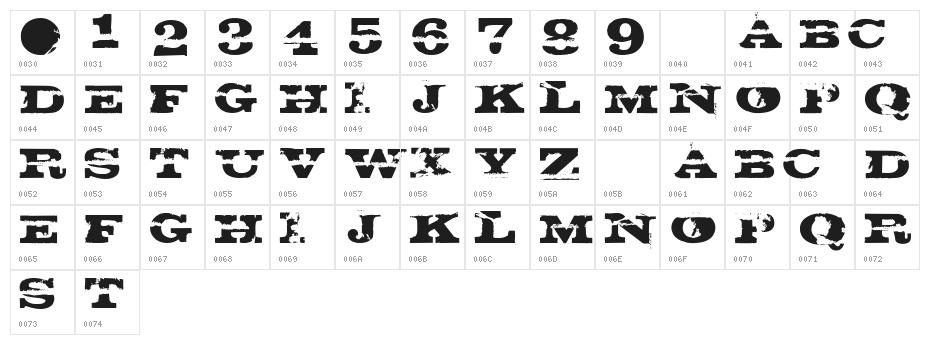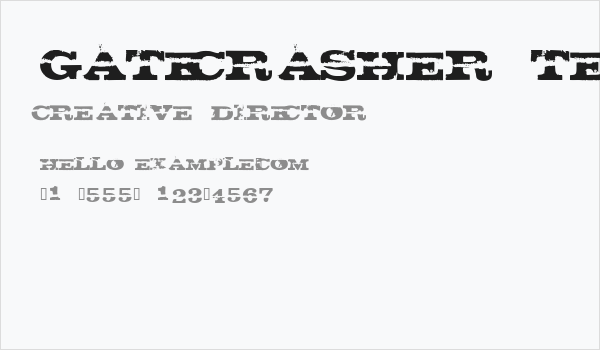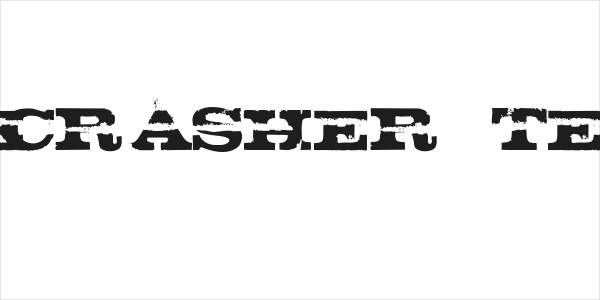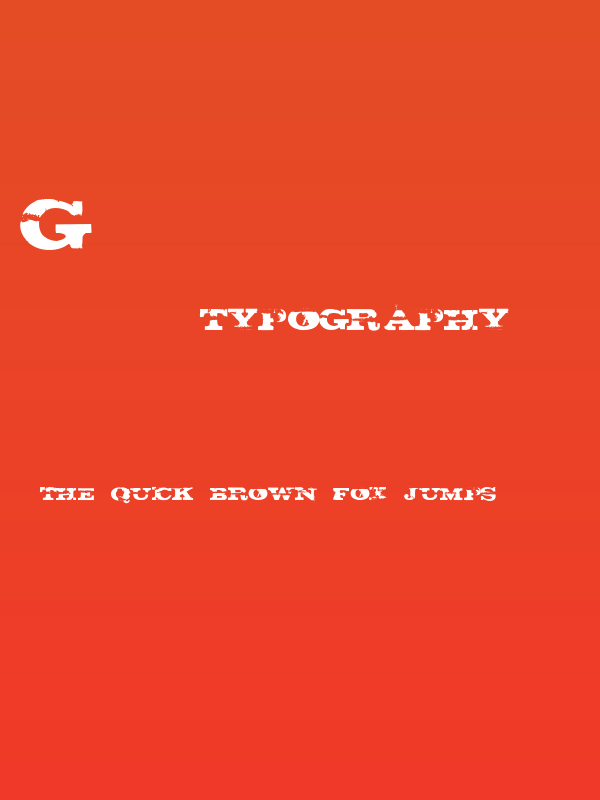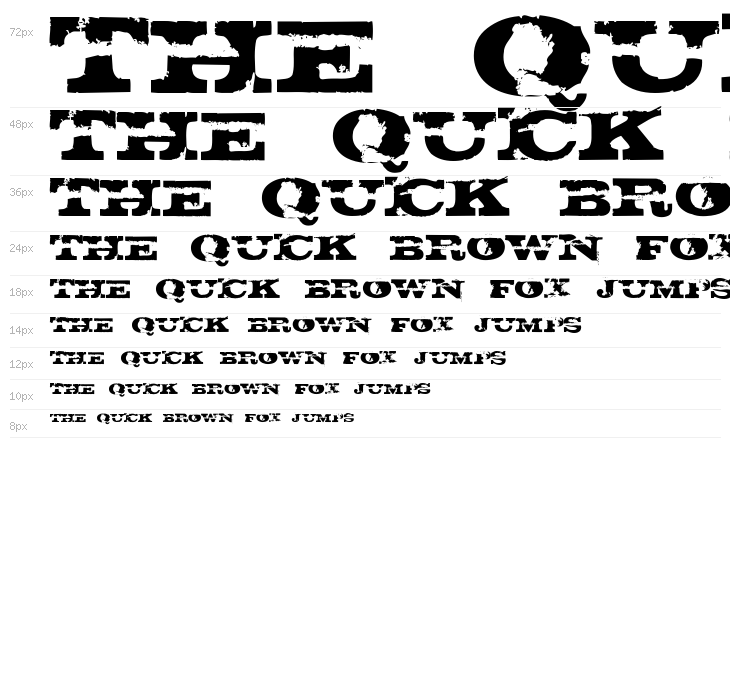
gatecrasher texan Font
gatecrasher texan Description
This font features a bold, distressed style with a rugged, textured appearance. The characters are heavily weathered, giving them a vintage, worn-out look reminiscent of old Western signage or rustic branding. The uppercase letters are prominent and impactful, while the numbers and special characters maintain the same distressed aesthetic. This font's unique style makes it stand out, perfect for projects that require a touch of grit and character.
| Use Case | Logos, Posters, Headlines |
| Proposed Projects | Ideal for Western-themed designs, vintage posters, rustic branding, and any project needing a gritty, textured look. |